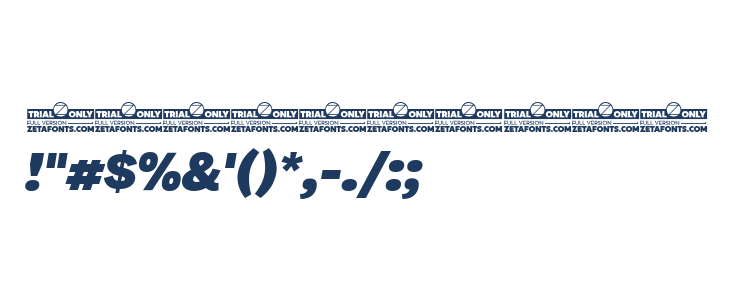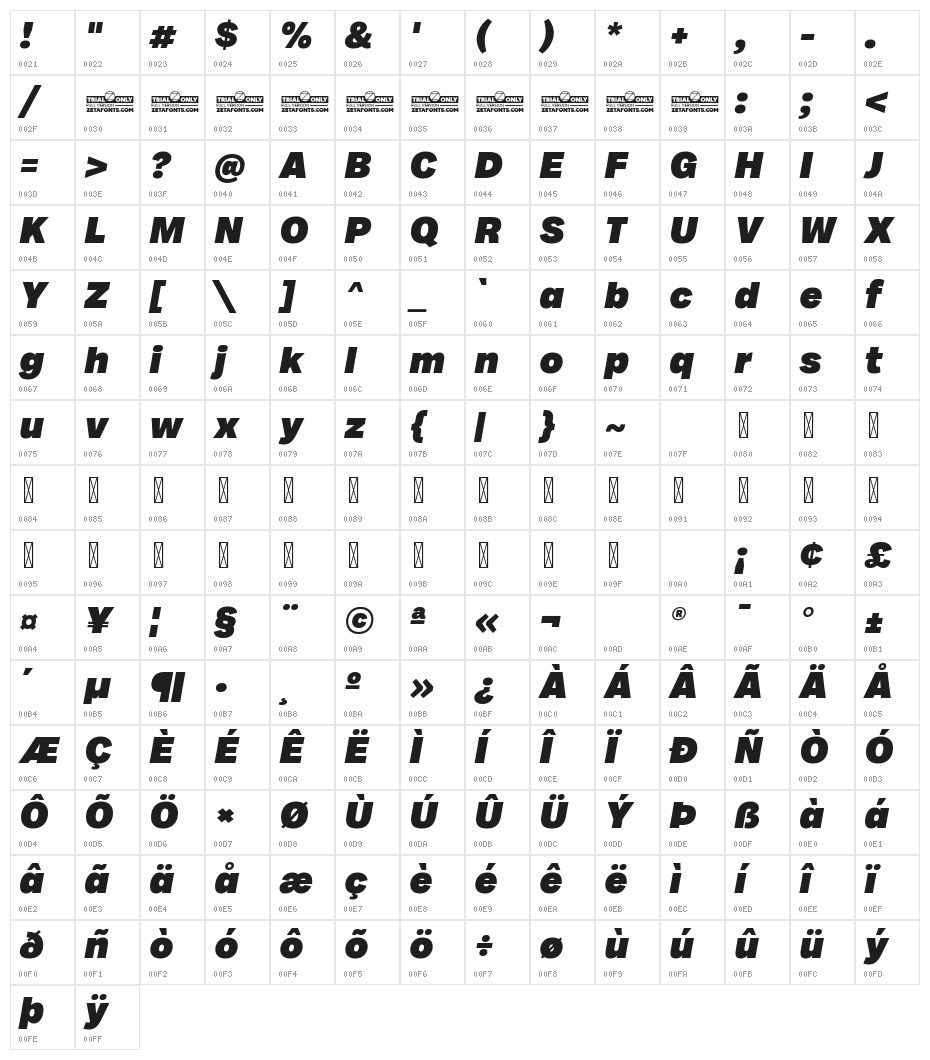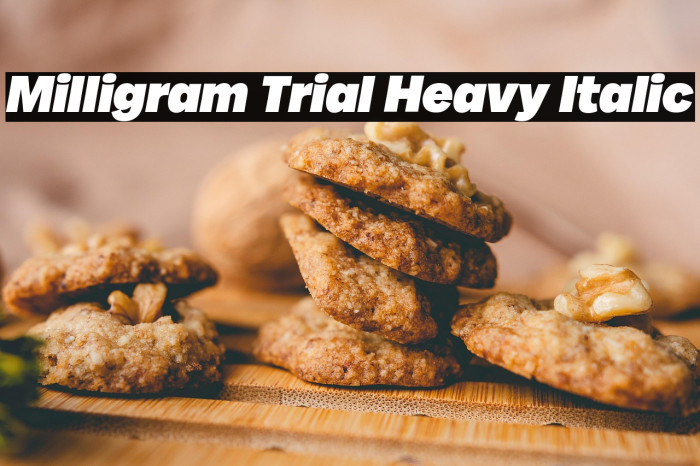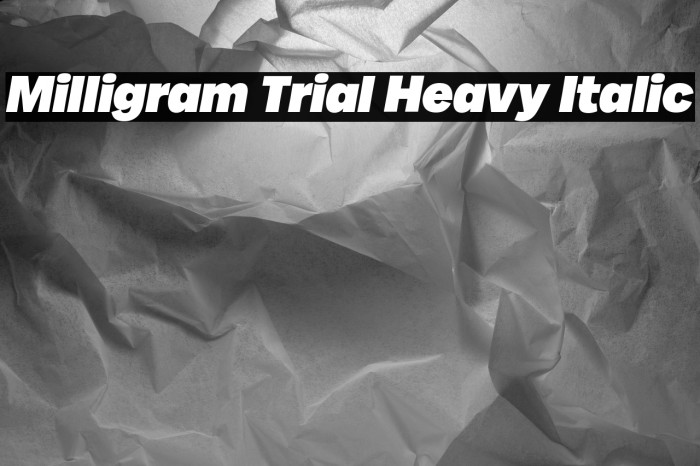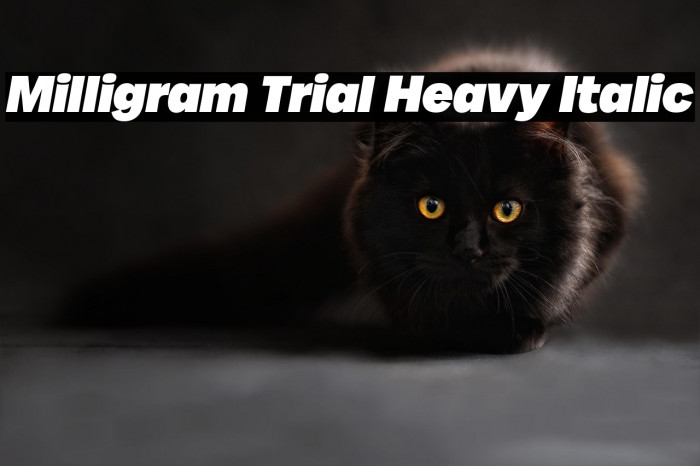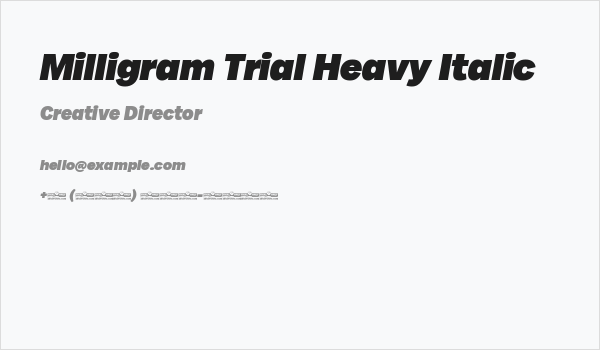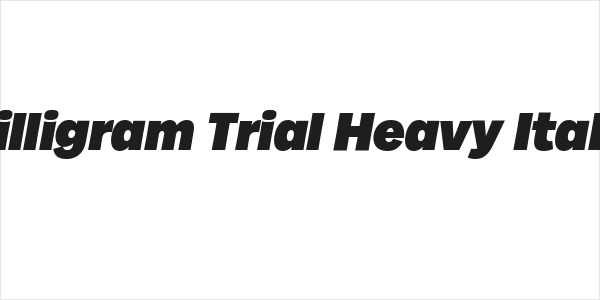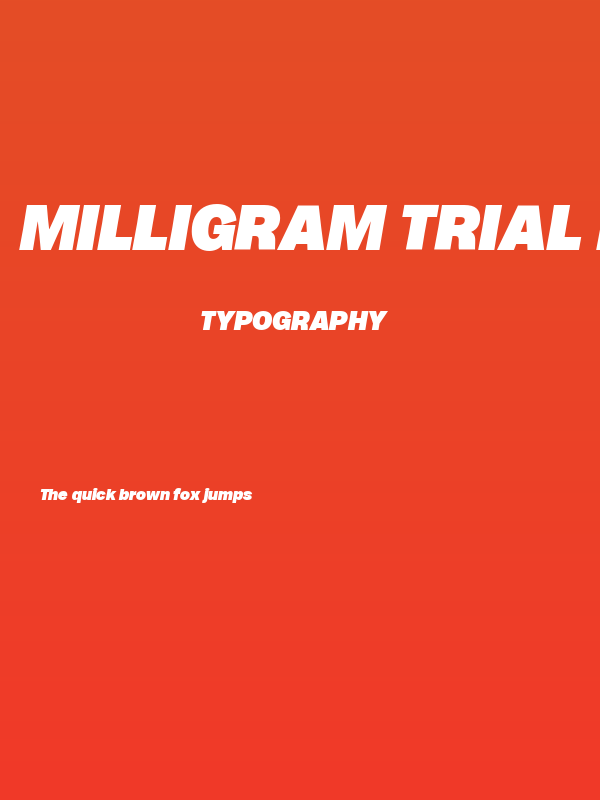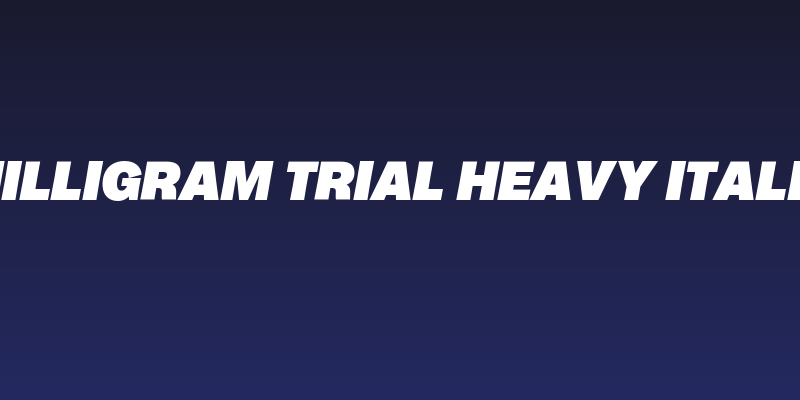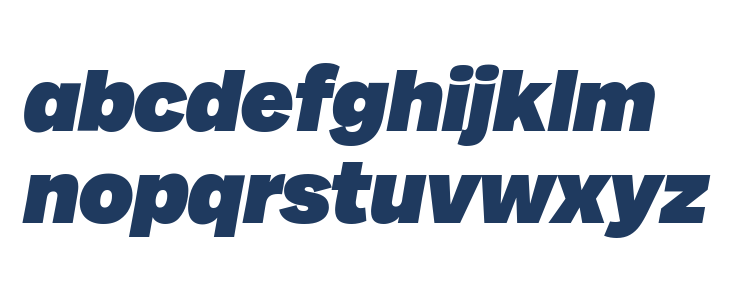
Milligram Trial Heavy Italic Font
Milligram Trial Heavy Italic Description
This font exhibits a bold and dynamic style, characterized by its heavy weight and italic slant. The letters are robust and impactful, making a strong visual statement. The uppercase and lowercase characters maintain a consistent thickness, contributing to a cohesive appearance. The numerals and special characters are equally bold, ensuring uniformity across all glyphs. The italic angle adds a sense of motion and modernity, making it suitable for contemporary designs. The overall design is clean and straightforward, with minimal decorative elements, focusing on clarity and readability.
| Use Case | Headlines, Logos, Advertising |
| Proposed Projects | Ideal for headlines, branding, advertising, and any project requiring a strong visual impact. |